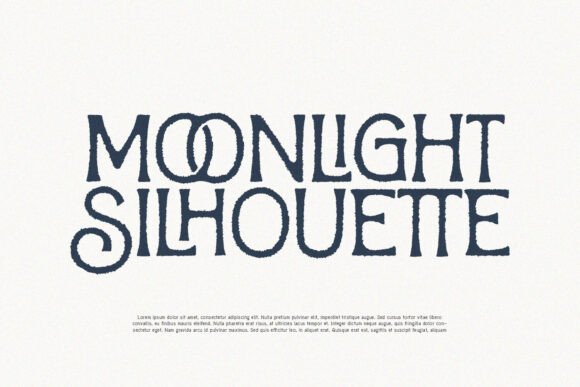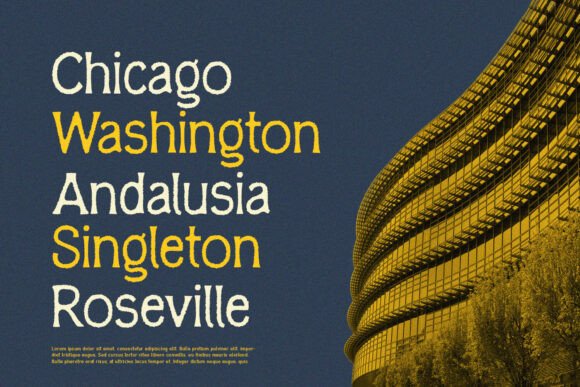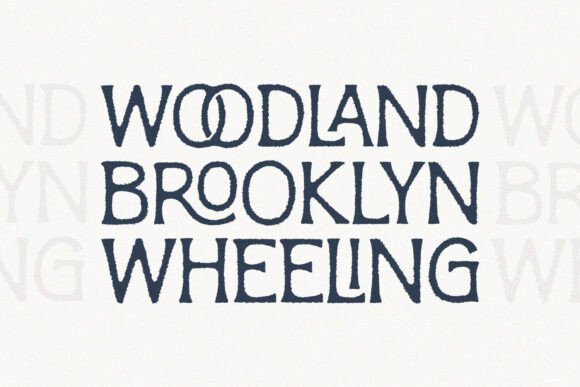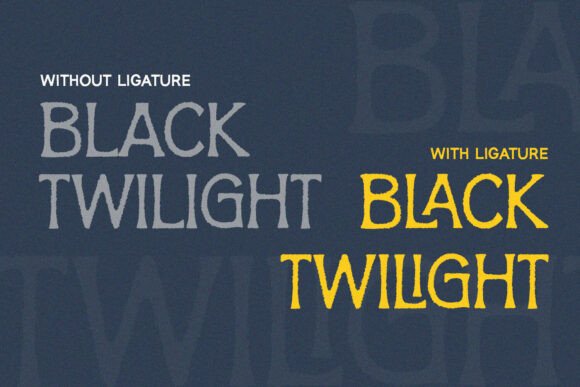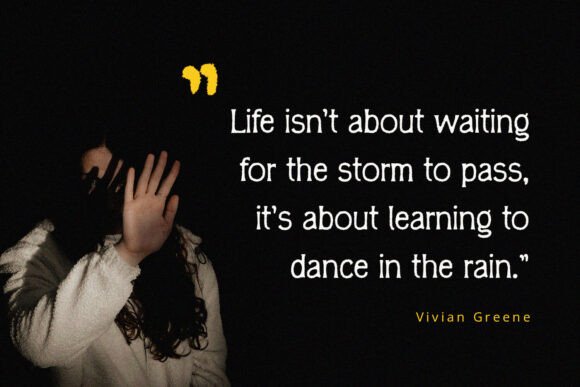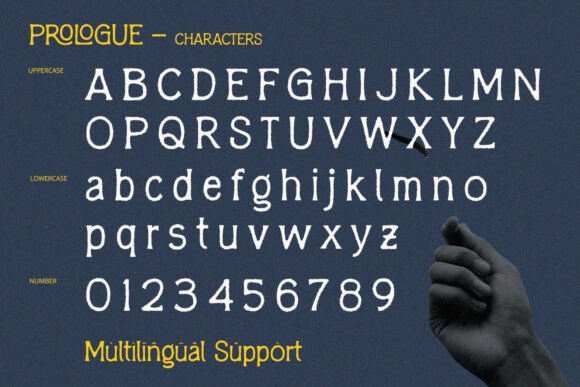
Introduction to Prologue Font
Prologue is a rough serif font with unique and classic feels.
It will be perfectly used for Branding, Logo Design, Lettering, Logotype, Clothing, Poster, magazine, packaging, posters, shopping bags, t-shirts, book covers, photography, special events and other design project Product Content : – Prologue (otf-ttf-woff) Features : – Uppercase & Lowercase – Numerals – Punctuations (OpenType Standard) – Accents (Multilingual Characters) – Ligatures and Alternative Style Stylistic Set – Works on PC & Mac – Simple installations I hope you enjoy this font.
Prologue Font offers exceptional quality and versatility, making it a valuable addition to your design toolkit. Whether you’re creating for personal projects or commercial use, Prologue Font delivers professional results.